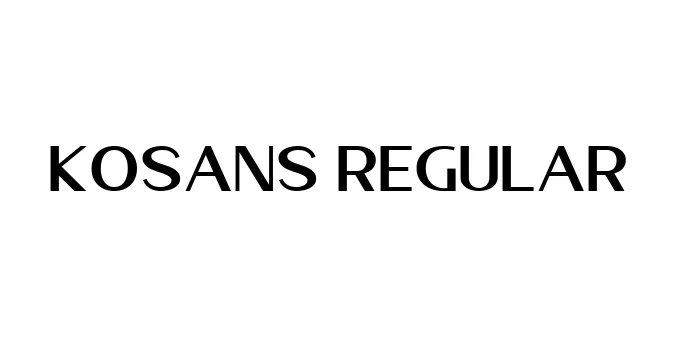
Kosans Regular
Designed by Kofont
Kosans Regular is a sophisticated geometric sans-serif typeface designed to bridge the gap between classic modernist aesthetics and contemporary digital requirements. It features clean lines, balanced proportions, and open counters that ensure exceptional legibility at various scales, making it a favorite for UI/UX designers and typographers alike.
Developed with a focus on minimalism, this font family has gained popularity among graphic designers for its versatility in branding and editorial design. Its neutral yet distinct personality makes it a reliable choice for professional corporate identities, high-end web interfaces, and sleek marketing materials that require a touch of modern elegance.
Kosans Regular Best Uses
Ideal for body text and navigation menus due to high legibility.
Perfect for creating modern, minimalist wordmarks and corporate identities.
Excellent for brochures, magazine layouts, and professional reports.